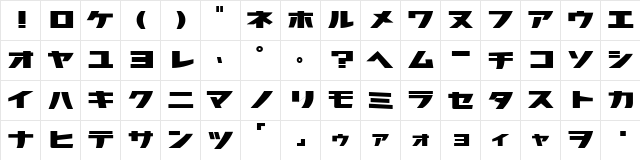
Nippon Bold 2.0
Design Context for Nippon Typeface
Nippon takes a measured approach to typography — its balanced proportions and neutral character make it a reliable workhorse for both digital and print work. The heavy weight commands attention and anchors typographic hierarchies.